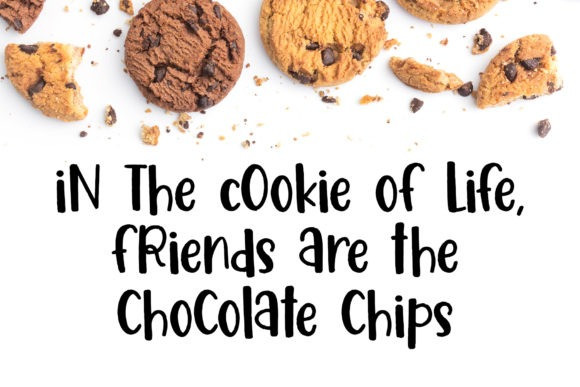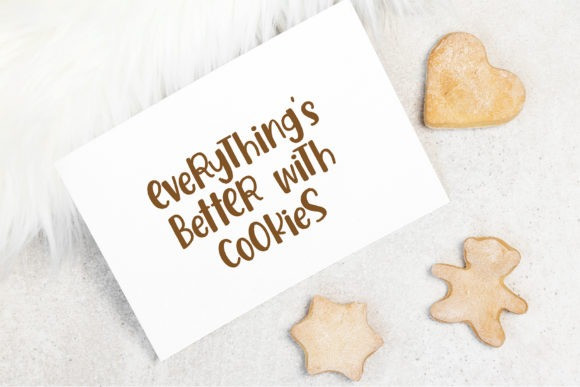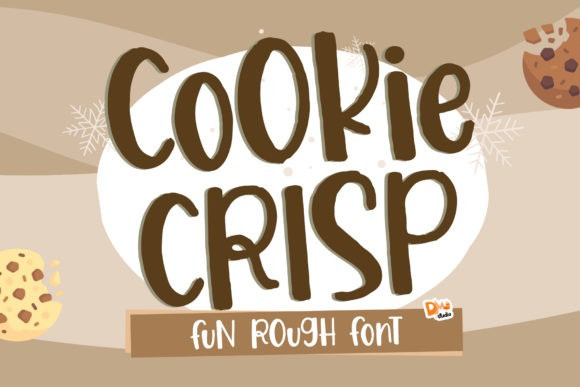
Cookie Crisp Display Font
Cookie Crisp is a fun and trendy display font. Add this unique and cartoon like font to your most creative ideas and notice how it makes them come alive!